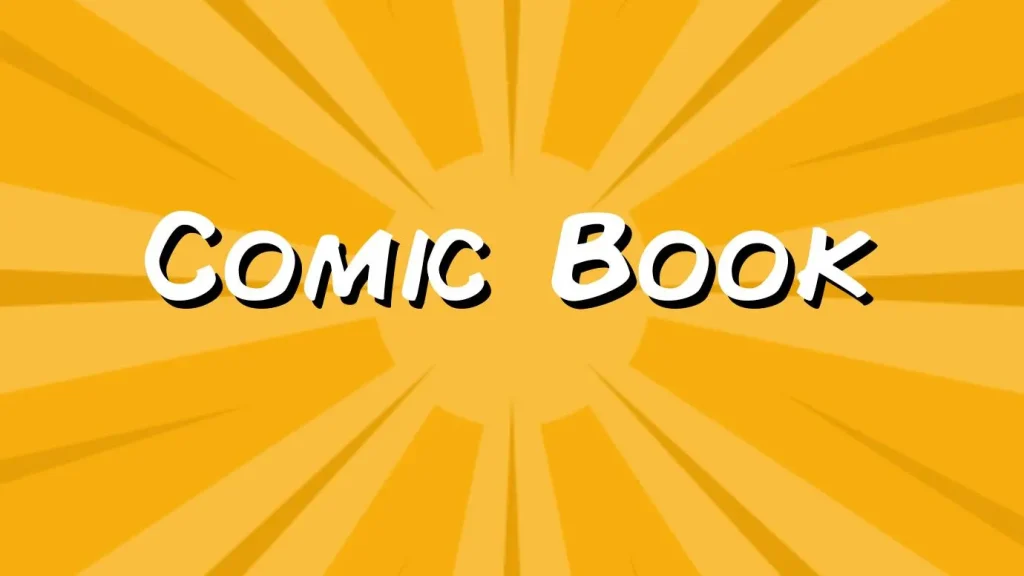
Pixel Sagas created this fancy style due to its innovative and brilliant structures it can be used for a variety of purposes named Comic Book Font. In addition to having an appealing appearance, this typeface can be used to design interesting logos.
The use of this typeface gives almost every design a heavy look, so it would be an ideal choice for big-text projects. The Adobe application Canva and Photoshop can be used with this style.
There are a lot of different ways you can use this typeface, such as creating invitations or elegant banners, unique covers, game titles, and many other designs. You can have this typeface into a CSS record for creating eye-catchy website content.
| Name | Comic Book Font |
| Designer | Pixel Sagas |
Important Usage of the Comic Book Font
This style is a good option to use for creating logos for YouTube channels, video web pages, and gaming videos. It is appropriate for elegant advertising layouts, and other welcome card designs.
It can be used for PowerPoint presentations, textile printing, and different publication projects. Also appropriate for poster logos, theme design, comic book design, and video design.
There is a generator tool that you can utilize to create unique theme patterns. Due to its innovative and brilliant structures, it can be used for a variety of purposes.
It is also suitable for brochures, posters, game designs, logo designs, and letters. It can be used in marketing tasks. Also, it has a unique text style making it a good choice for any kind of work. In addition to invitations, branding designs, logos, business cards, quotes, and more, you can also use them for branding and logo design.
Comic Book Font Family
Effectiveness of Comic Book Font
This typeface could be an awesome choice for any content that needs a touch of attractiveness. Because the look is extremely unique. It is extensively utilized to create beautiful backgrounds. The font is often utilized by authors to create their lovely designs.
You’ll produce this typeface from the online textual style generator tool. The style contains both upper- and lower-case letters, numbers, and some punctuation marks. The text style is flawless as long as the design has a fun and unique feel.
You can use this font for all your fun designs it is suitable for logo designs, it is a beautiful font and has many features like pretty-style letters.
This font style has nice features. It is a flexible typeface that can be used for a wide range of tasks such as site plans, branding, and advertising.
Is Comic Book a good font for website?
Comic Book is a good font for website design because it is easy to read and has a clean, minimalist appearance.
Is Comic Book a modern font?
This font style is considered a modern font, it has all caps-letters that can give a very great visual to your design.
Can I use Comic Book in a logo?
This font style is also commonly used in a logo. This font style has a very eye-catching appearance that you can use in many other projects.